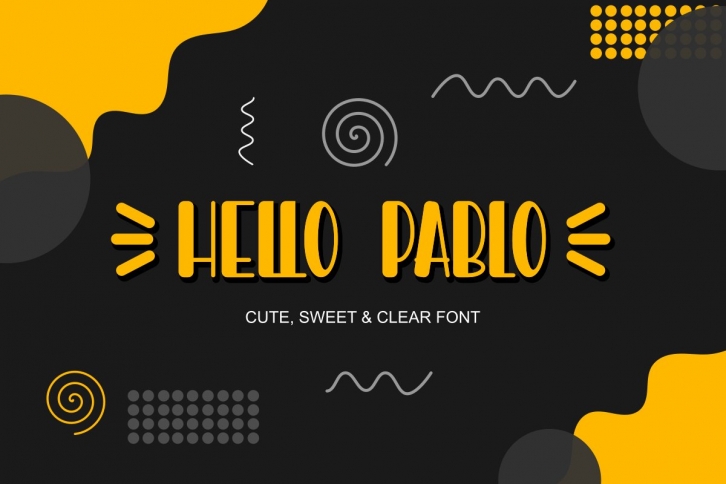
Hello Pablo is a great font that was designed by Prast Art. Imagine the amount of combinations you can create using this font! The archive is 11.97 MB and it was released on July 9, 2020. Hello Pablo looks beautiful on wedding invitations, greeting cards, logos, posters, labels, t-shirt designs, logos, business cards and is perfect for use in ink or watercolor works, fashion, magazines, packaging and food menus, children's books and more!